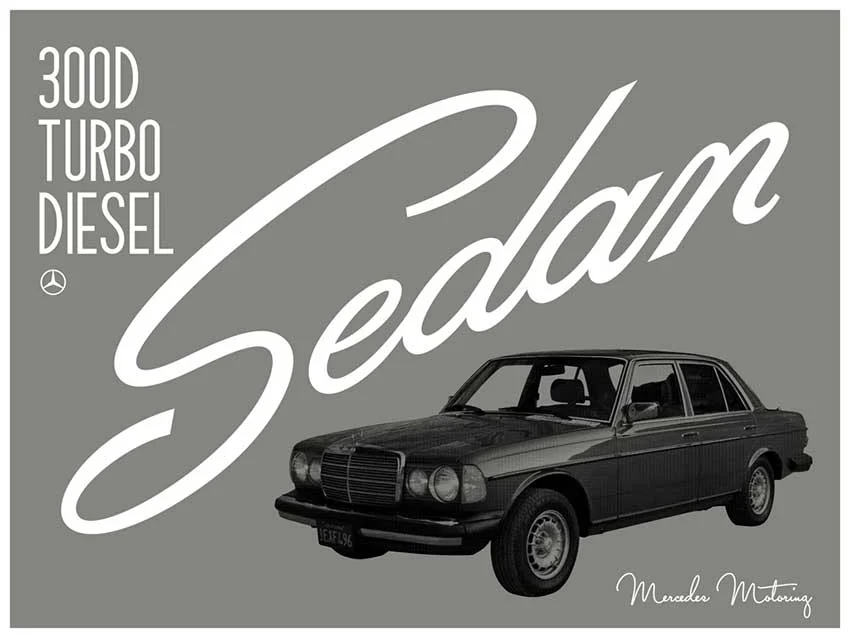
Drew Melton is a Los Angeles-based letterer, graphic designer, and occasional illustrator. He and his wife just launched Anchor Paper Co., a new collection of beautiful stationery. Each design is hand-lettered by Drew and pressed into premium cotton paper and it's is just gorgeous. Although I'd seen Drew signature swashes before, but knew nothing about the man, so I pinged him to see if he could share some insights with us.
You live in L.A., but you're not from L.A. Where have you lived across the country?
So far just Grand Rapids, Michigan (my hometown) and Los Angeles, California. Oh, I also lived in Tulsa, Oklahoma for about 3 months!
I have to ask. What were you doing in Tulsa?
Haha—I had a really random internship at a church their through a friend. At that point in my life I was willing to do anything and live anywhere. It was the best/worst summer of my life.
Has Los Angeles influenced your work?
Absolutely yes! People seem to believe that there is no culture in LA. However, living downtown has been an amazing eye opener for me. When you live in a densely populated area you have to bump into, look at, interact with, and expose yourself to things you wouldn't normally seek out. Everything from graffiti on the side of a building to a pop-up shop in the arts district. There is just a lot going on. It's chaotic and comforting to me all at the same time.
You're a designer, letterer and illustrator. What would your alternate profession be you weren't in visual communication?
Entrepreneur. I hate that word but I absolutely love business.
We love the work you did for Mercedes Motoring. How did that project come about?
Okay so to be clear, that project was not for Mercedes corporate. I was connected with this company through a friend. They find vintage mercedes vehicles with less than 30,000 miles and completely deconstruct the vehicle and detail every part before putting it back together. They are some of the most beautiful cars I have ever seen. These posters were meant to be giveaways with some of the more popular models they sell at the shop. I still haven't seen them in person yet.
Mercedes Motoring sketches
What's the most fun thing you've worked on recently?
Definitely the Herb Lester Project. I've also been doing business planning with Blumer Associates and I have to say… For the first time, I'm working with business people that really inspire me creatively!
Your passion for art and design started young, but how young?
When I was in High School I interned doing website design and that gave me the courage to apply to an art school nearby. In college I wasn't specifically aware of lettering or typography as its own entity but I do remember always doing reports or design studies on Herb Lubalin. His work was so bold and beautiful. It was art to me. His letter forms kicked my ass.
Who is your mentor?
Jake Weidmann is one of the most inspiring people I know. I wouldn't say we are close enough to call him a mentor but his approach to work and life has really changed the way I approach work. He has been generous enough to spend some time with me whenever I'm in Denver. Aside from Jake I have some really talented friends that I share my work with for critique and inspiration. They are honest and supportive. Having great people like them around keeps me going for sure.
Jake's work is beautiful, I can see why you're inspired. What're you working on next?
I am currently the most excited about my very first font! The whole thing started because someone told me I need to check out the Glyphs App. So like most things—I turned it into a project—I have been spending 30 minutes a day (sometimes a lot more) working through this font and I feel like it's almost ready for the world! It's one of the most fun things I've worked on in a while.
The other thing I'm really stoked on are some menu guides for Herb Lester Associates. I've been a huge fan of theirs for some time now. They are so easy to work for. They really want you to do work that you can get excited about it. It's been great! You can check the designs out here.